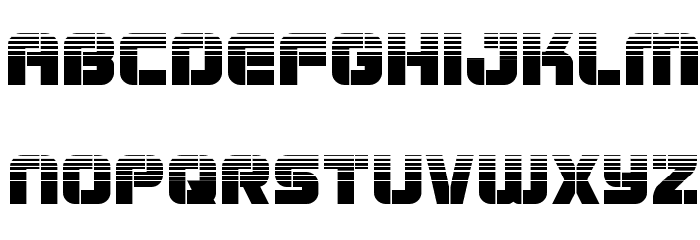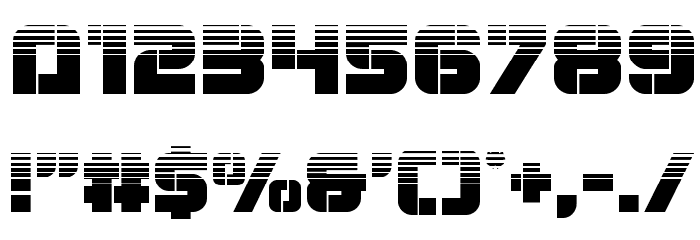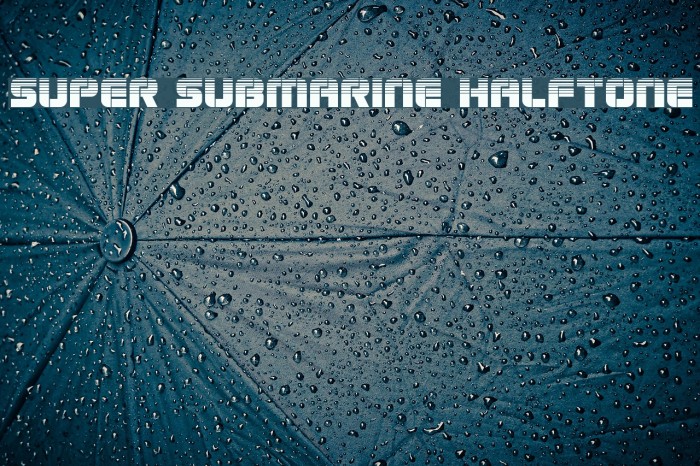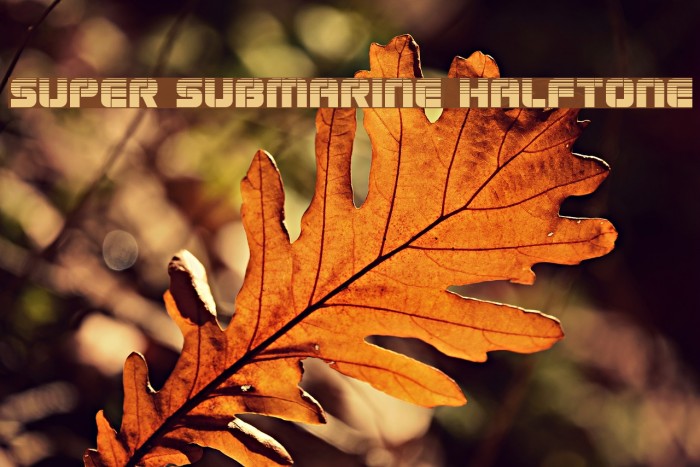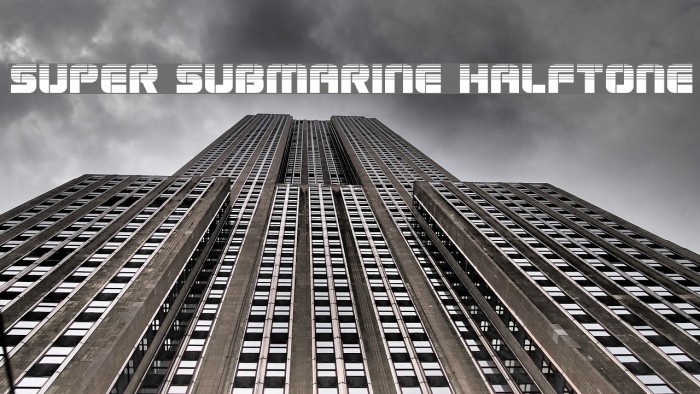
Super Submarine Halftone Font
This font features a bold, geometric design with a unique halftone effect that creates a sense of movement and depth. The characters are constructed with horizontal lines that break up the solid forms, giving it a futuristic and industrial look. The uppercase letters are particularly striking, with their strong, angular shapes and consistent line patterns. The numbers and special characters maintain this style, ensuring a cohesive appearance across all glyphs. This font is ideal for projects that require a modern and edgy aesthetic, such as technology branding, sci-fi themed designs, or urban streetwear graphics.
A bold, geometric font with a halftone effect, perfect for modern and edgy designs.
- Font: Super Submarine Halftone
- Proposed Projects: Technology branding, sci-fi themed designs, urban streetwear graphics, posters, album covers.